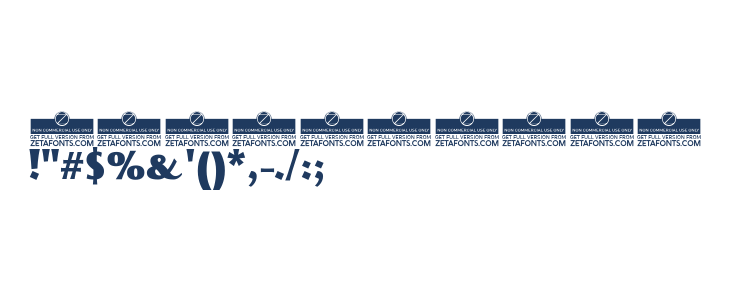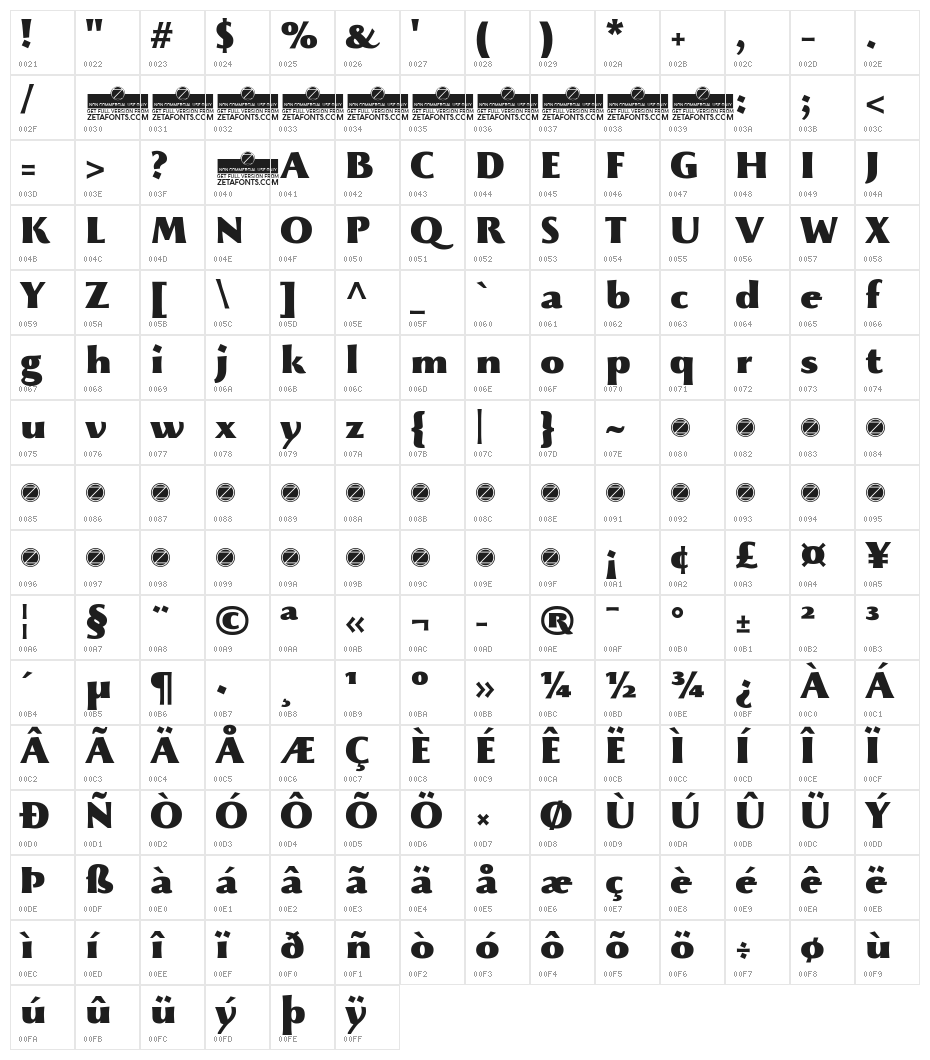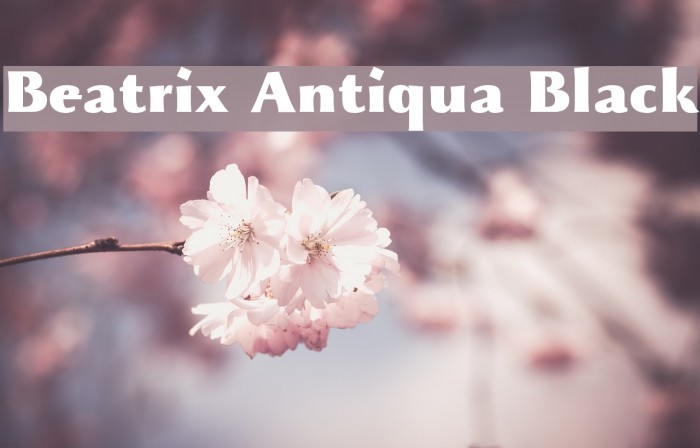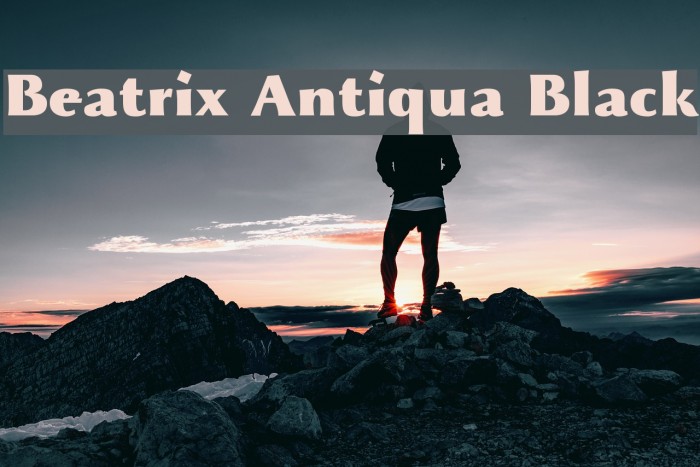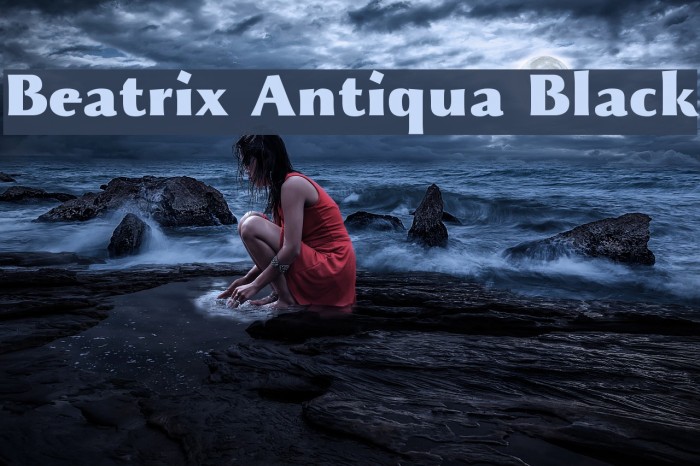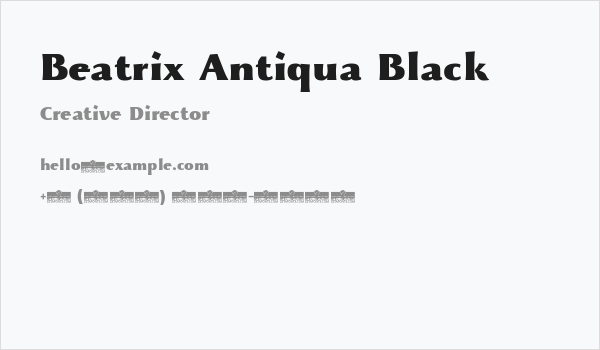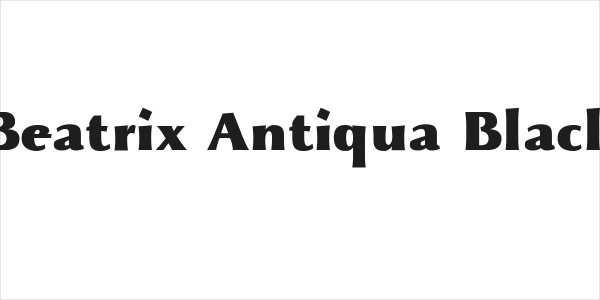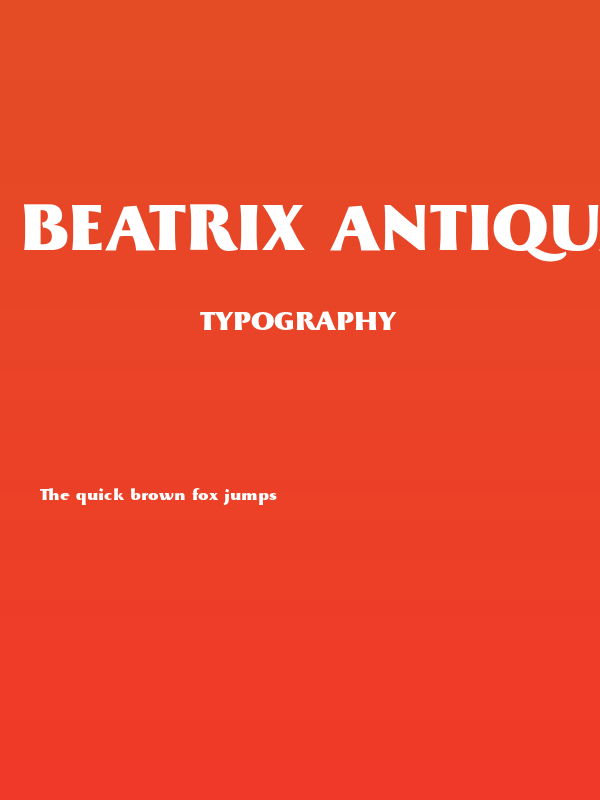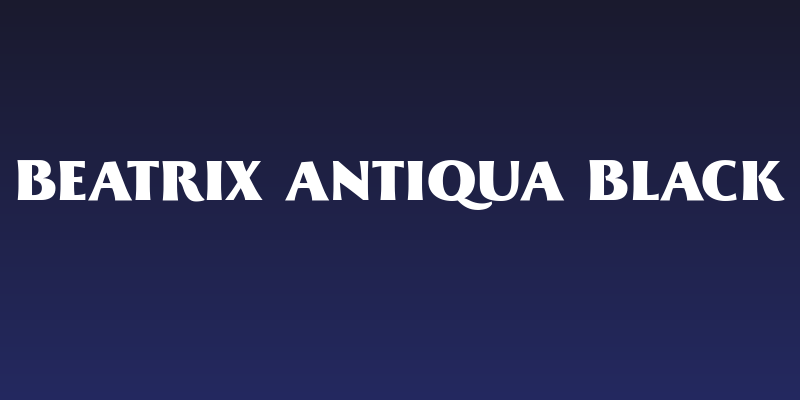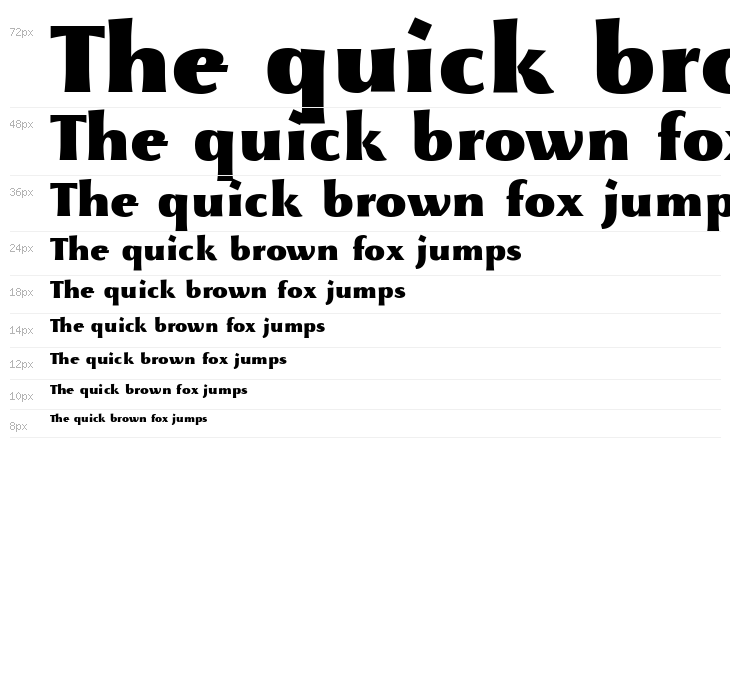
Beatrix Antiqua Black Font
Beatrix Antiqua Black Description
This font features a bold and striking design with a strong presence. The characters are crafted with thick strokes and a high contrast between thick and thin lines, giving it a dramatic and impactful appearance. The serifs are pronounced, adding a touch of elegance and sophistication. The overall style is reminiscent of classic typefaces but with a modern twist, making it suitable for a variety of design applications. The uppercase letters are particularly commanding, while the lowercase letters maintain a consistent weight and style. The numerals and special characters are designed to match the boldness of the alphabet, ensuring a cohesive look across all text elements.
Overall StyleClassic
Proposed ProjectsIdeal for headlines, branding, posters, and any design requiring a strong visual impact.